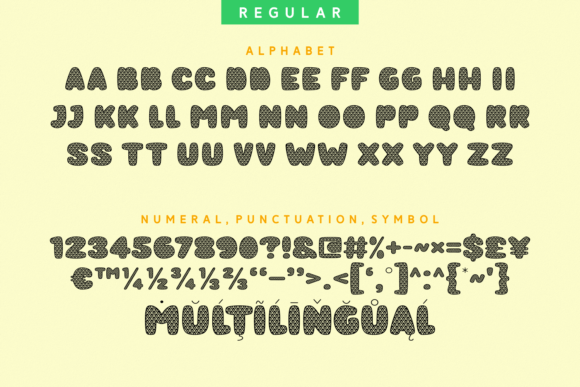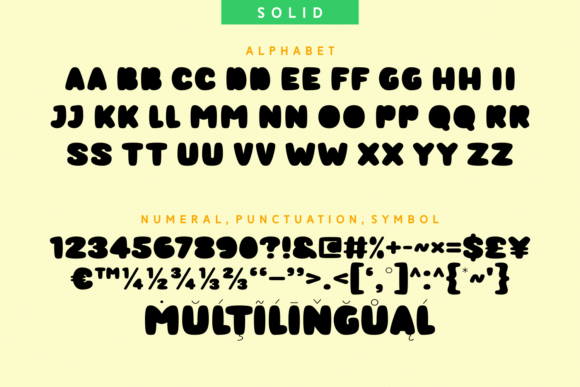
Unleash the Tropical Vibes: Discovering the Perfect Font for Your Next Design Project
Who hasn’t been inspired by the sweet taste of a fresh pineapple on a sunny day? As designers, we often find ourselves looking for that one element that brings our projects to life, and for some of us, it’s a font that screams tropical bliss. If you’re on the hunt for the perfect font to give your next design project a fruity twist, you’re in luck!
Meet Favorite Juice Font, a delightful display font duo that embodies the carefree spirit of a pineapple paradise. This cheerful font is designed to transport your audience to a world of sweetness and joy, making it perfect for creating the visual identity of juice bars, restaurants, candy brands, and more. As a designer, you’ll love that Favorite Juice Font is PUA encoded, allowing you to easily access all the glyphs and unleash your creativity.
Favorite Juice Font Key Features
- Unique Characteristics: The Favorite Juice Font features a unique blend of modern and vintage elements, with a bold and playful style that is perfect for food, beverage, and lifestyle branding.
- Character Set: The font includes a comprehensive character set, including Latin, Cyrillic, and Greek alphabets, as well as a range of punctuation marks and symbols.
- Kerning and Ligatures: The font includes advanced kerning and ligature pairs, ensuring that text sets are visually appealing and easy to read.
Favorite Juice Font Review
Overall, I have mixed feelings about “Favorite Juice Font”. Let’s start with what works well:
- ✨ The font’s quirky, playful vibe is perfect for creative projects like social media graphics, advertisements, or children’s books.
- ✨ The font is highly legible, even at small sizes, making it suitable for body text.
- ✨ The font’s eclectic nature can add a unique touch to your designs, helping your work stand out from the crowd.
However, there are some limitations:
- ⚠️ The font’s irregularities can be overwhelming if used extensively, making it difficult to read.
- ⚠️ The font lacks a clear hierarchy, which can make it challenging to create visually appealing typography.
- ⚠️ The font’s eccentricity may not be suitable for formal or professional projects.
Overall, I think “Favorite Juice Font” is a great choice for designers who want to add a bit of whimsy to their work. While it may not be suitable for all projects, it’s perfect for those looking to add a touch of personality to their designs.
Tips: Favorite Juice Font is best used for titles and headings. Experiment with different font sizes and styles to create visual hierarchy.
Tips: Favorite Juice Font is versatile and can be used for body text as well. Experiment with layer styles and effects to add depth and interest.
Tips: Favorite Juice Font is ideal for presentations and documents where you want to convey a sense of friendliness and approachability.
Favorite Juice Font is perfect for:
- Health and wellness marketing
- Children’s products and services
- Event and party invitations
Remember to use Favorite Juice Font consistently throughout your design to create a cohesive and recognizable brand identity